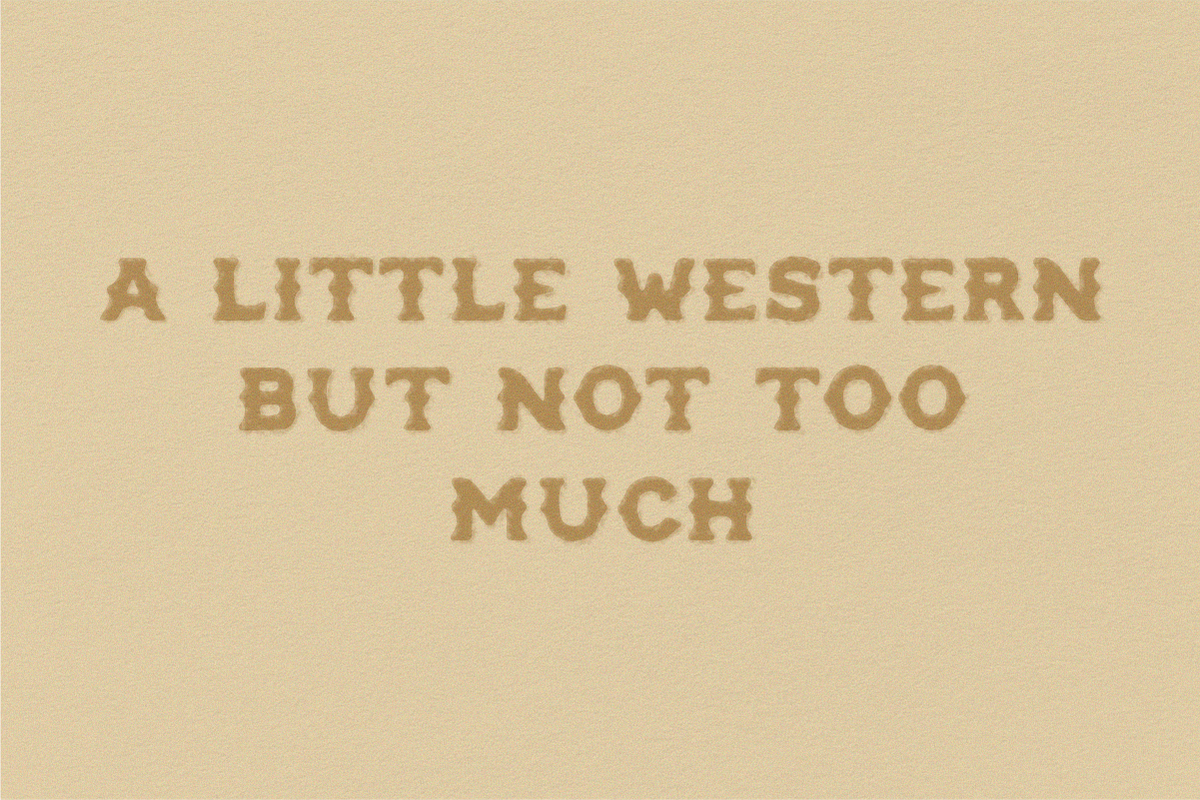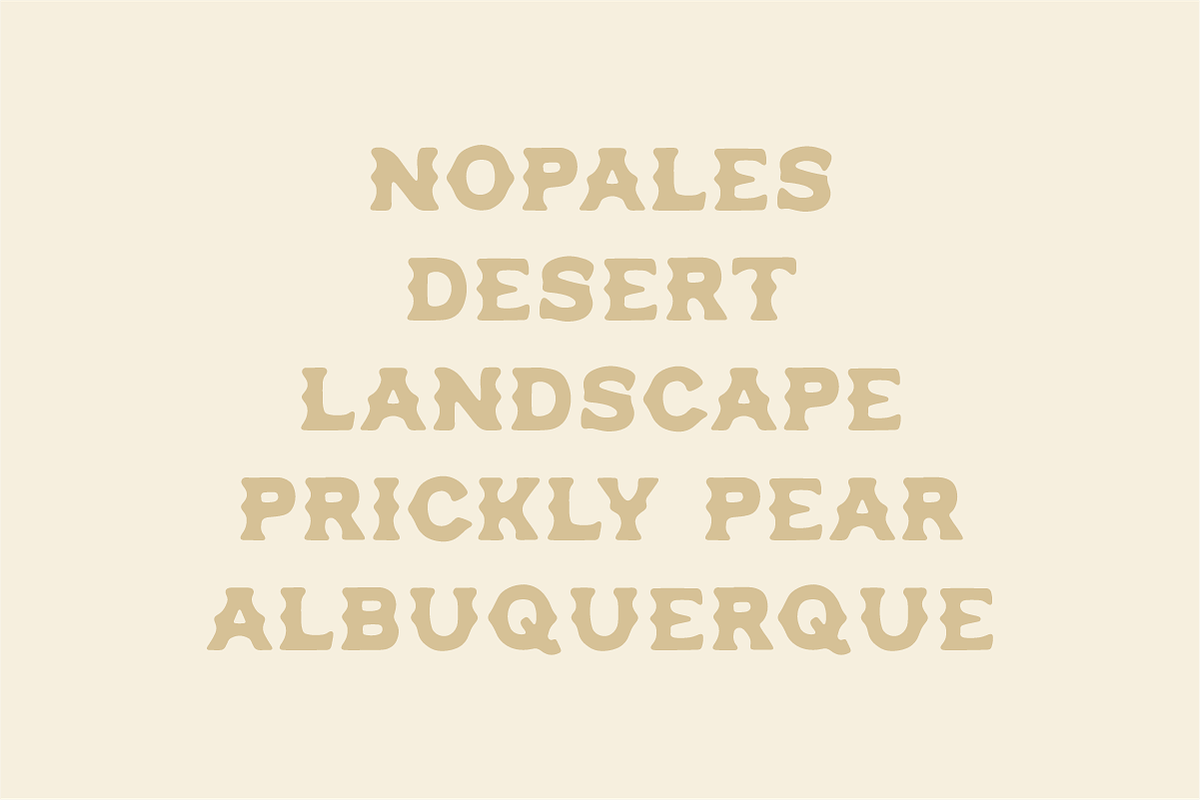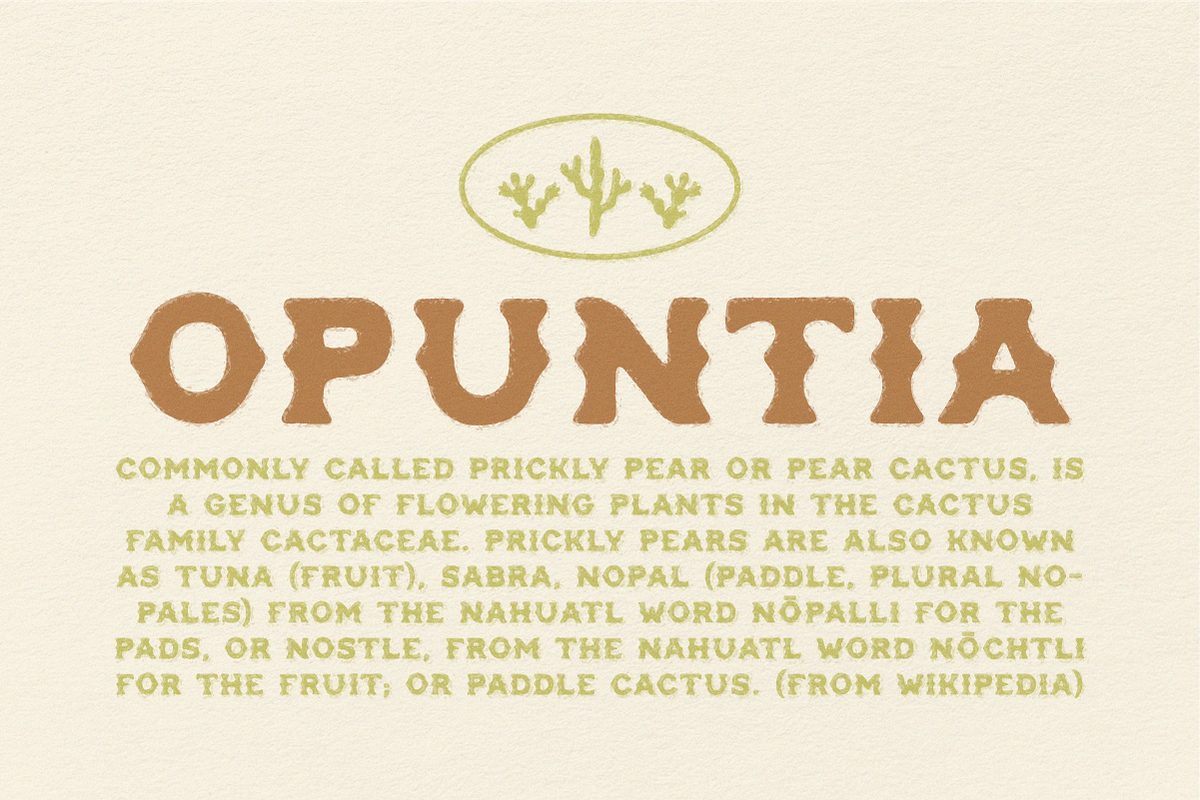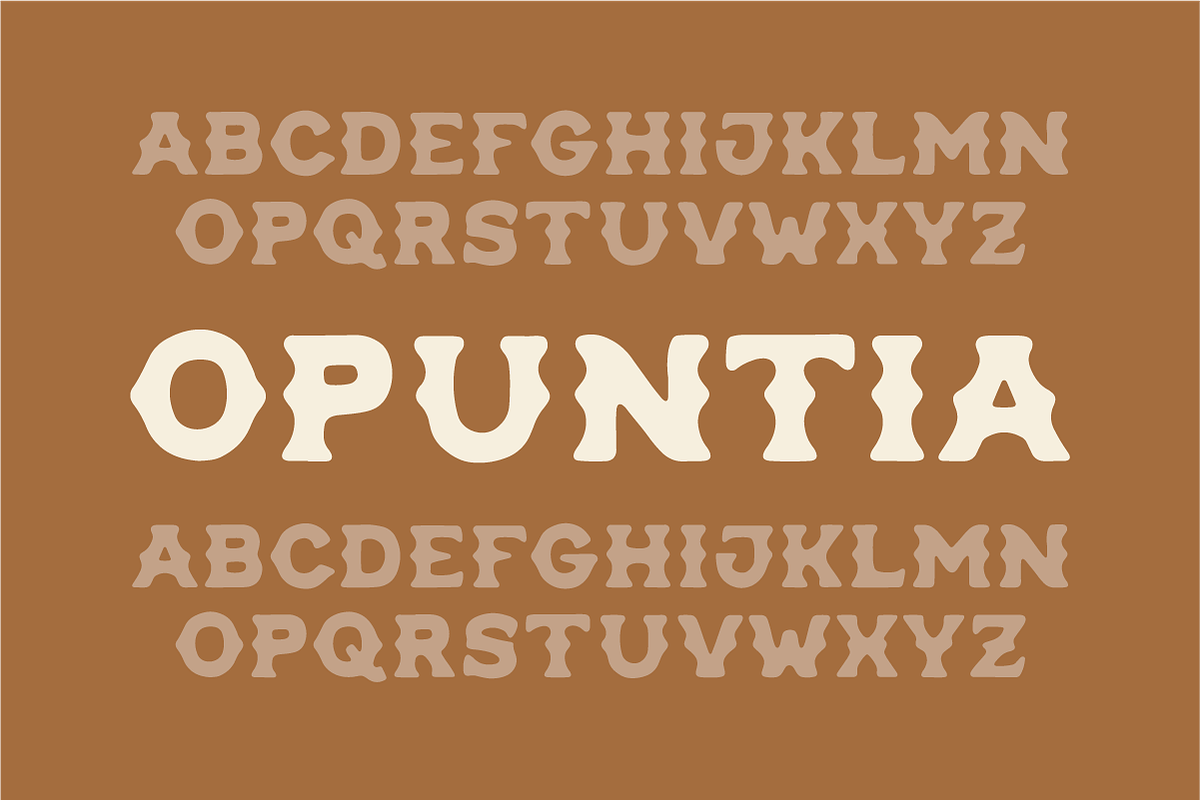
Opuntia - Curvy Spur Display Type
Prickly pear have captivated me as a plant with their curvy, alternating angles. The bright yellow blooms. The vibrant sour-sweet flavor of the fruit. The savory flavor of the tuna. The resilience of a desert plant to hold its own water and withstand the elements.
This font is the brainchild of the shapes and feeling that the desert landscape, sprinkled with prickly pear (and cholla!) are to me.